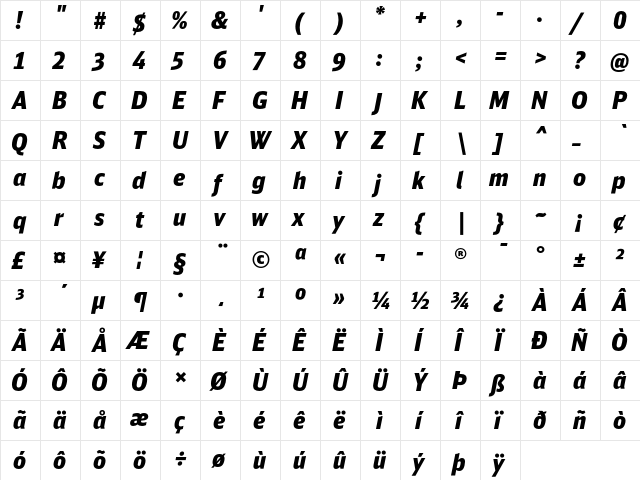
DB Sans Cond Altern Black Italic Font Preview
Design Context for DB Sans Cond Altern Typeface
DB Sans Cond Altern offers clean, dependable letterforms without strong stylistic allegiance, making it a practical choice for designers who need flexibility. Its italic angle brings a sense of urgency and motion to the letterforms. The condensed width makes it efficient for tight spaces without sacrificing legibility.
Pro Tip: Try DB Sans Cond Altern for annotation and caption copy alongside an upright companion — the contrast in angle creates a dynamic but ordered typographic system.